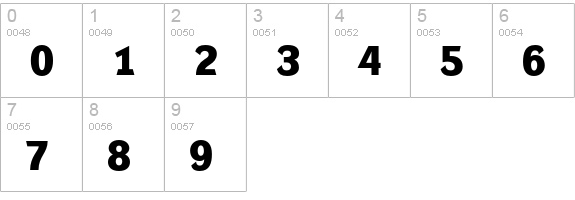
The Dynamo B E font is a modern and stylish typeface that exudes a sense of energy and dynamism. Its bold and dynamic letterforms make it perfect for creating eye-catching designs that demand attention. The font's sleek lines and sharp edges give it a contemporary feel that is both sophisticated and edgy. With its versatility and unique character, Dynamo B E is ideal for a wide range of design projects, from branding and advertising to posters and packaging. Whether you're looking to make a bold statement or add a touch of flair to your designs, this font is sure to impress. Best of all, Dynamo B E is available for free download at FontsMarket.com, making it accessible to designers of all levels. Don't miss out on this fantastic opportunity to enhance your projects with the dynamic and striking Dynamo B E font.